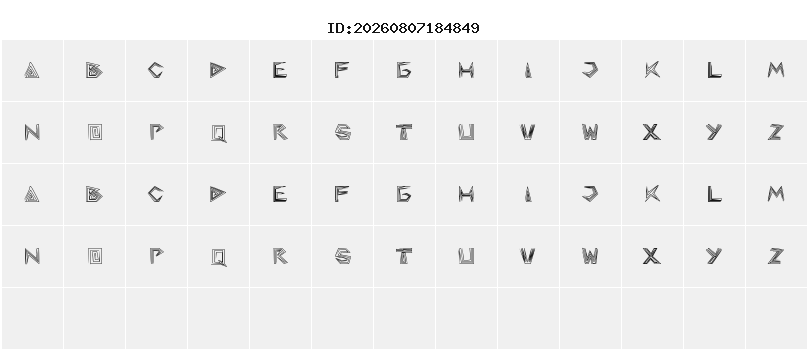
• Font Name: pyramid inverted
About pyramid inverted.ttf
pyramid inverted.ttf is a modern, elegant sans-serif font designed for ultimate readability and visual harmony. Perfect for branding, headlines, web design, and print materials.